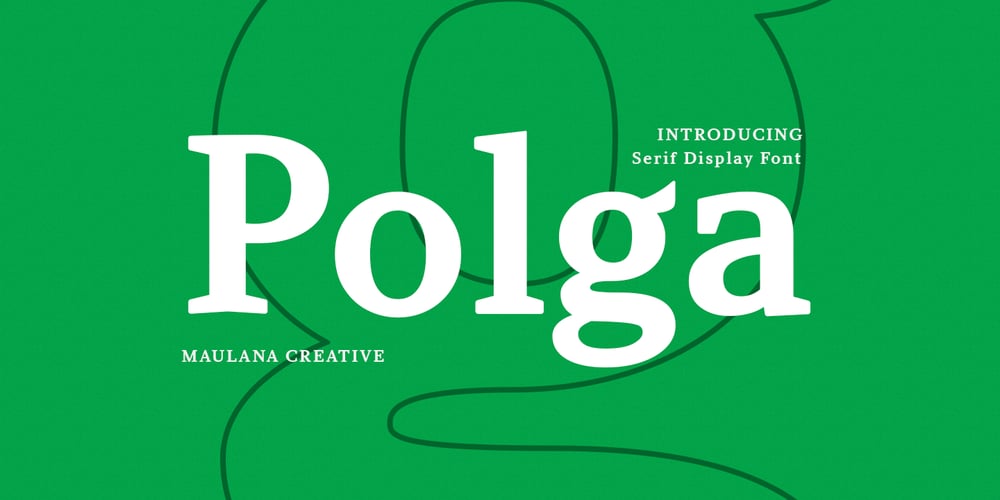
MC Polga Font Family was designed by Gilang Maulana and published by Maulana Creative. MC Polga contains 1 styles and family package options. Polga is a Classical vibes modern yet Display serif font. Bold stroke, fun character with a bit of ligatures and alternates. To give you an extra creative work. Polga font support multilingual more than 100+ language. This font is good for logo design, Social media, Movie Titles, Books Titles, a short text even a long text letter and good for your secondary text font with script or serif. Make a stunning work with Polga font. Cheers, Maulana Creative